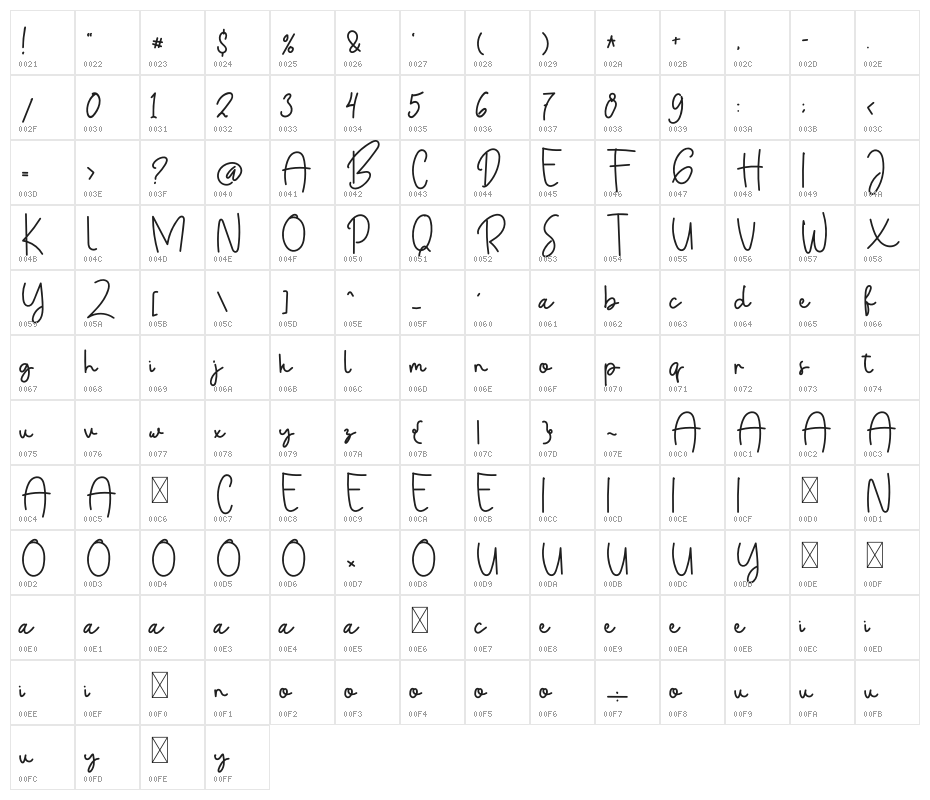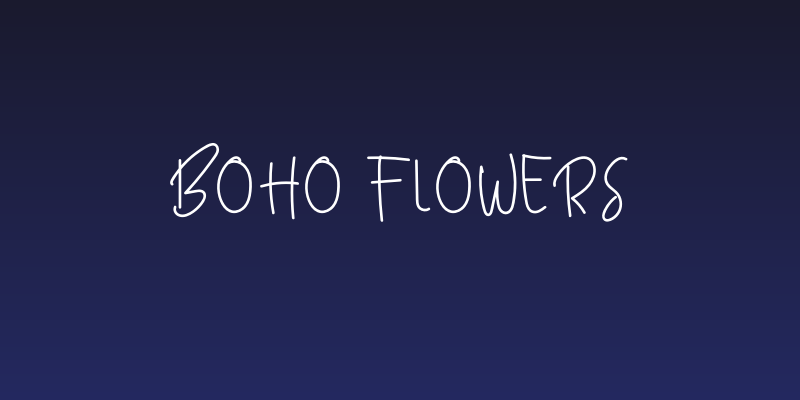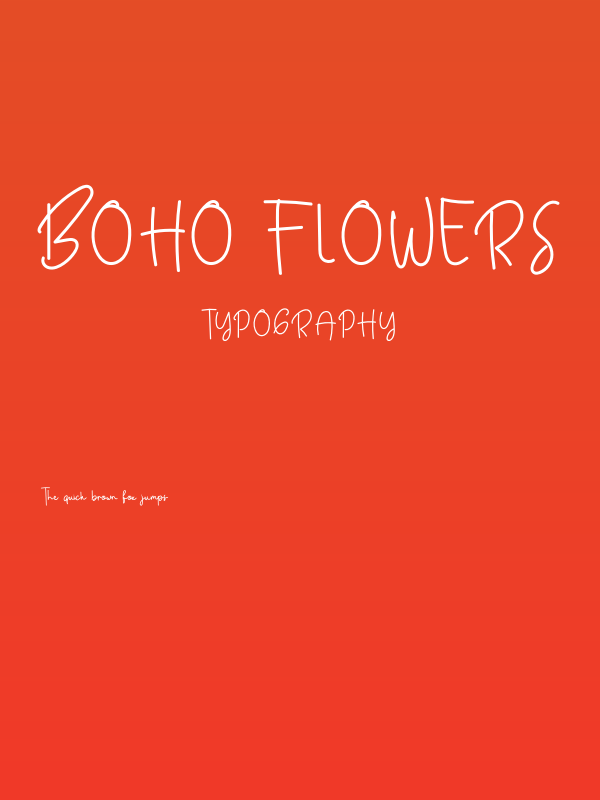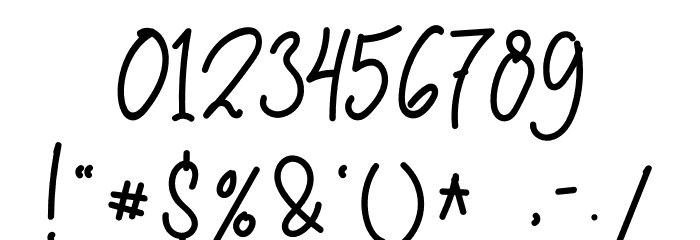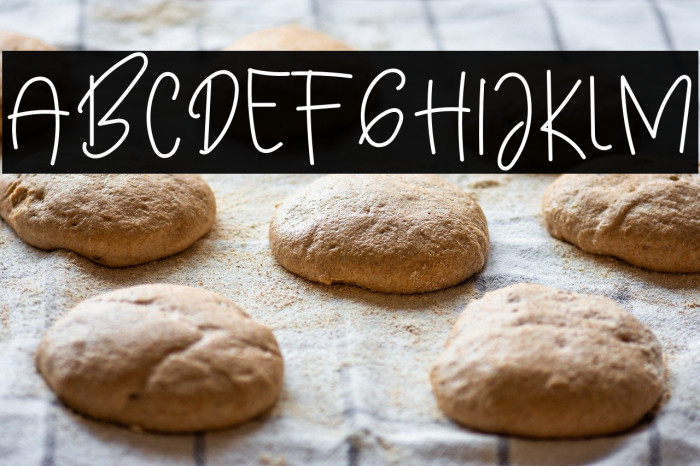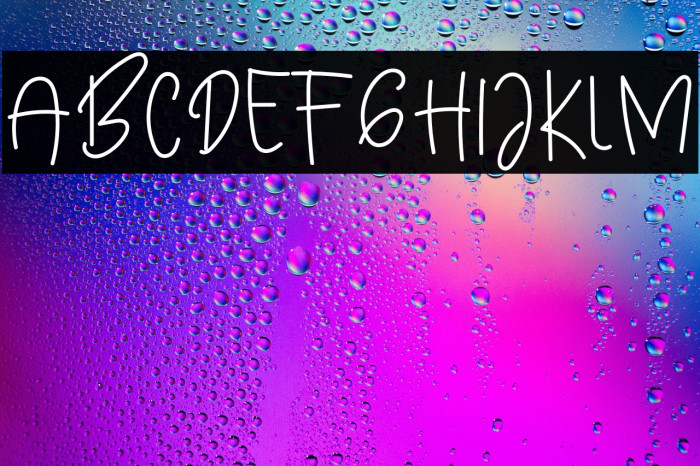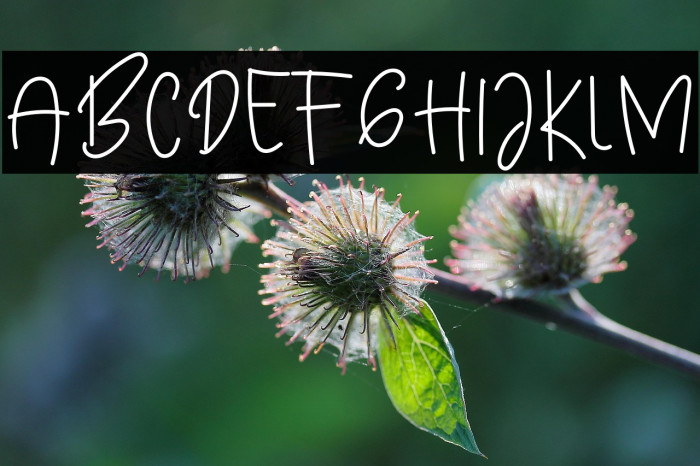
Boho Flowers Font
Boho Flowers Description
This font features a playful and casual handwritten style, characterized by its flowing and organic letterforms. The uppercase letters are tall and slightly narrow, with a whimsical touch that adds a sense of movement. The lowercase letters maintain a consistent flow, with some letters like 'g' and 'y' having distinctive loops. The numerals are rounded and align well with the overall style, providing a cohesive look. Special characters are creatively designed, adding to the font's charm. The strokes are consistent in width, giving it a balanced appearance.
| Proposed Projects | Ideal for greeting cards, invitations, personal branding, and creative projects that require a casual and friendly touch. |